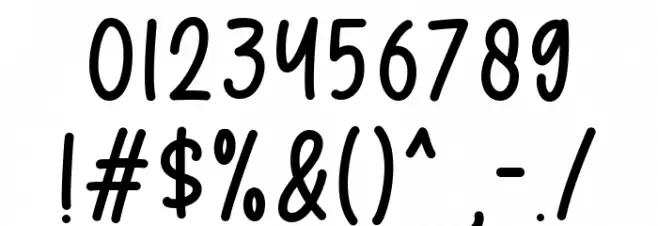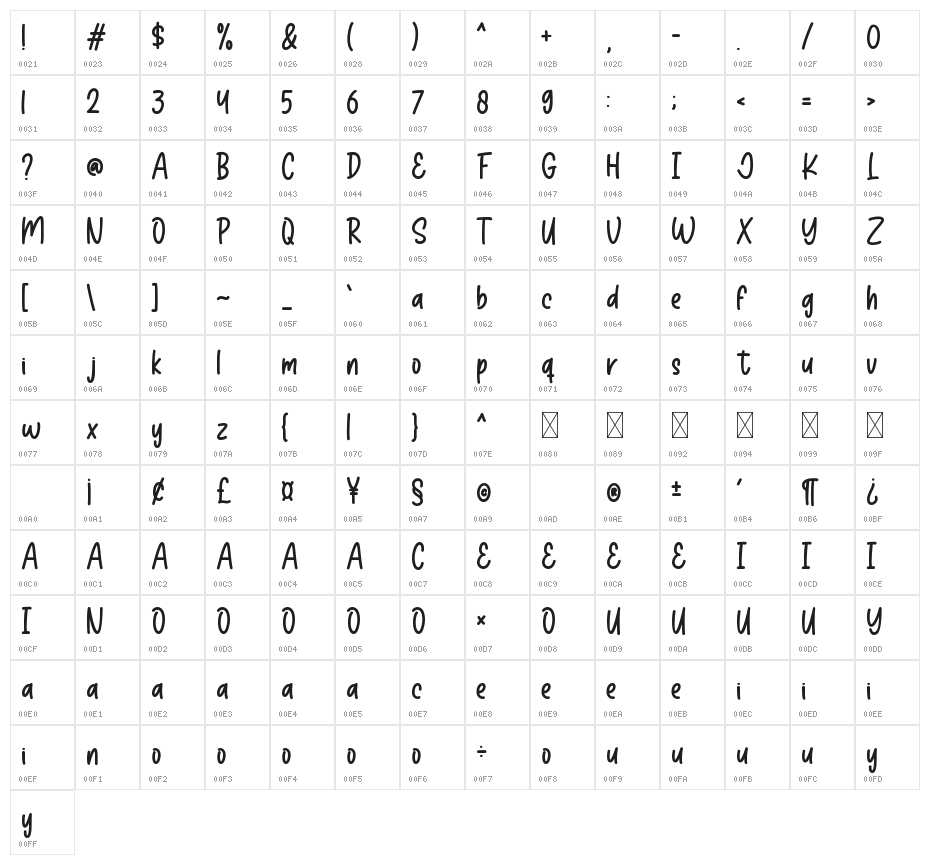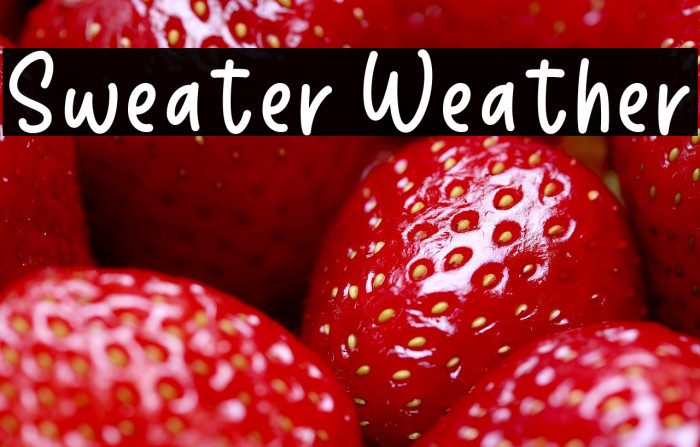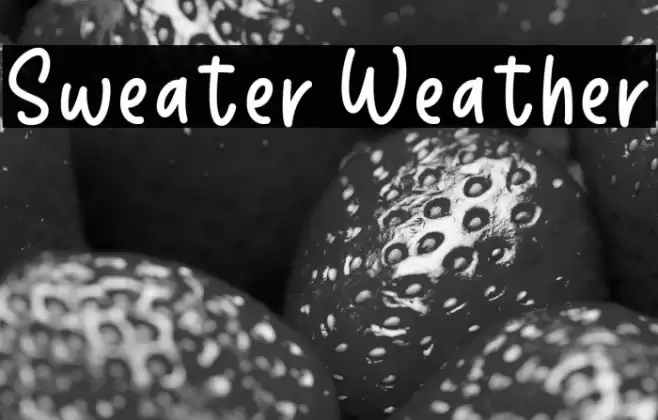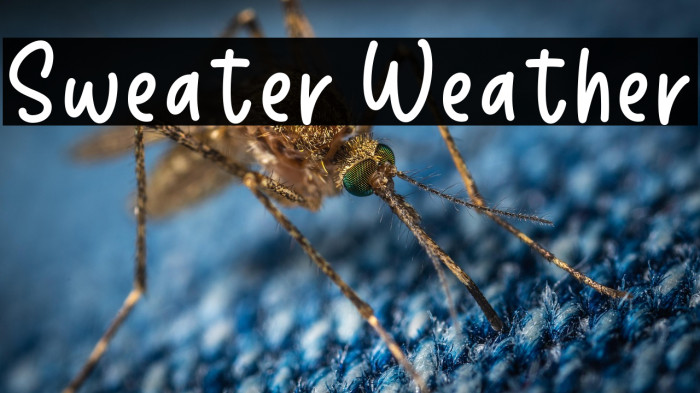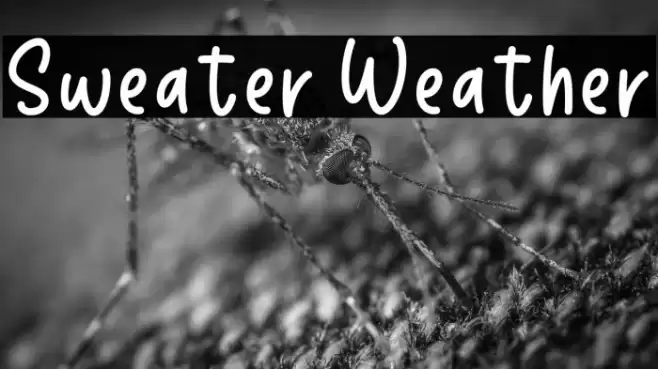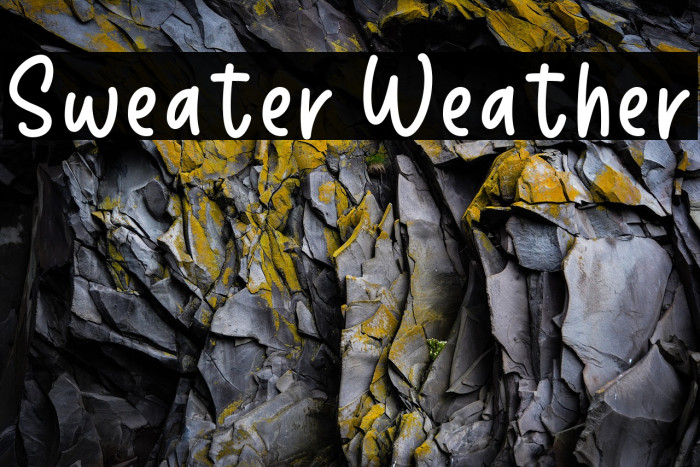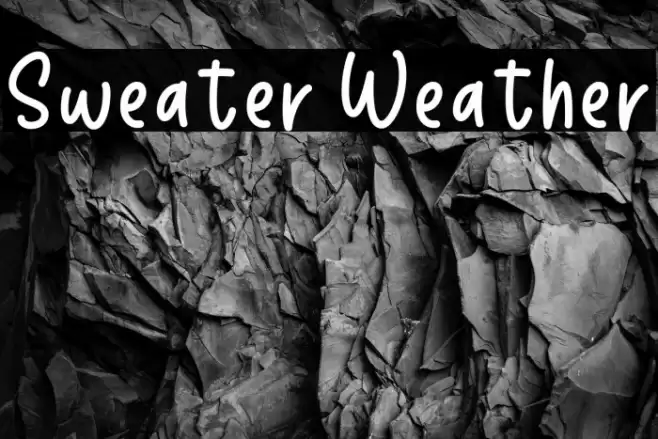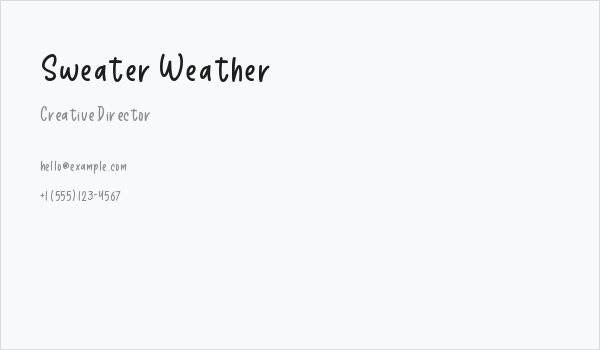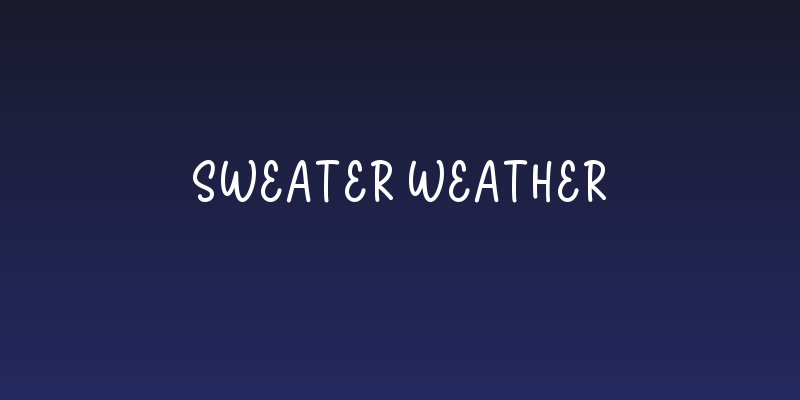
Sweater Weather Font
Sweater Weather Description
This font features a playful and casual handwritten style, characterized by its smooth curves and slightly irregular letterforms. The uppercase and lowercase letters maintain a consistent flow, giving it a friendly and approachable appearance. The numbers and special characters are crafted with the same whimsical touch, making them blend seamlessly with the alphabet. The overall design is informal yet legible, suitable for conveying a relaxed and personal tone. Its organic feel is perfect for projects that aim to evoke warmth and friendliness.
| Proposed Projects | Ideal for greeting cards, personal blogs, children's books, and casual branding. |